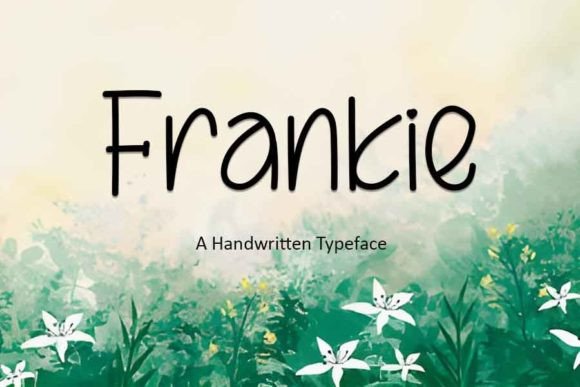
Step into a world of whimsical charm and elegance with Frankie Font - the script font that exudes a touch of nostalgia, warmth, and playfulness. Inspired by the gentle curves and delicate strokes of handwriting, Frankie Font is the embodiment of creativity and imagination. It's a font that speaks to the heart and captures the essence of childhood dreams and timeless stories.
With its flowing lines and enchanting characters, Frankie Font is the perfect choice for those seeking a font that adds a personal touch to their projects. Its versatility extends beyond picture books, making it an ideal choice for invitations, greeting cards, posters, branding, and social media graphics. Frankie Font's ability to evoke emotions and create a lasting impression makes it a standout choice for any creative endeavor.
Immerse yourself in the world of Frankie Font and let your imagination run wild. Its timeless beauty and charm will elevate your projects to new heights, leaving a lasting impact on your audience. Whether you're a writer, designer, or simply someone with a passion for unique and captivating fonts, Frankie Font is the perfect addition to your creative toolkit.
**Embrace the Magic of Frankie Font:**
* Handwritten Elegance: Frankie Font captures the essence of handwritten notes, bringing a touch of warmth and authenticity to your projects. Its natural flow and organic curves create a sense of intimacy and connection, making it perfect for personal messages, invitations, and heartfelt greetings.
* Timeless Beauty: Frankie Font transcends fleeting trends and fads. Its classic design ensures that your projects will remain visually appealing and timeless. Whether you're creating a children's book, a wedding invitation, or a marketing campaign, Frankie Font adds a touch of sophistication and charm that will stand the test of time.
* Versatility Unbound: Frankie Font's adaptability knows no limits. It effortlessly complements a wide range of creative projects, from whimsical illustrations to elegant branding designs. Its ability to blend seamlessly with various styles and themes makes it a versatile choice for designers and artists seeking a font that can adapt to their unique visions.
* Emotional Resonance: Frankie Font has the power to stir emotions and create a lasting impact on your audience. Its playful and charming nature evokes feelings of nostalgia, joy, and wonder, making it an ideal choice for projects that aim to connect with the hearts of your readers or customers.